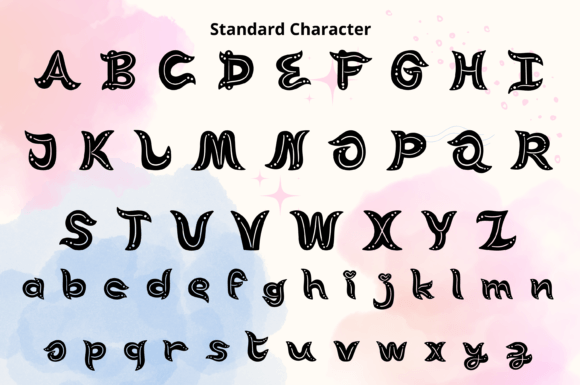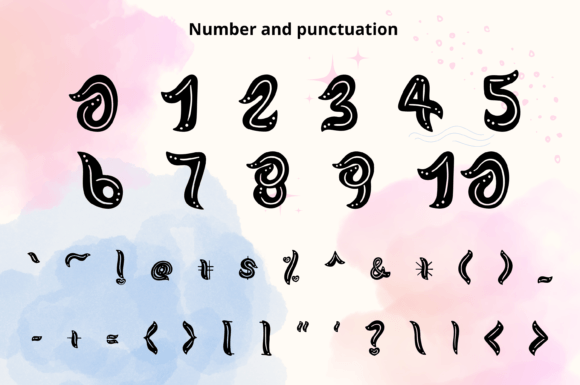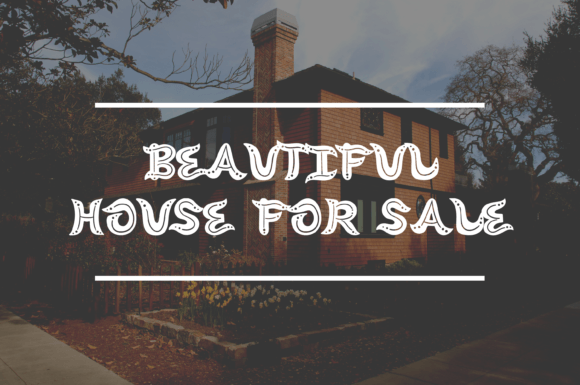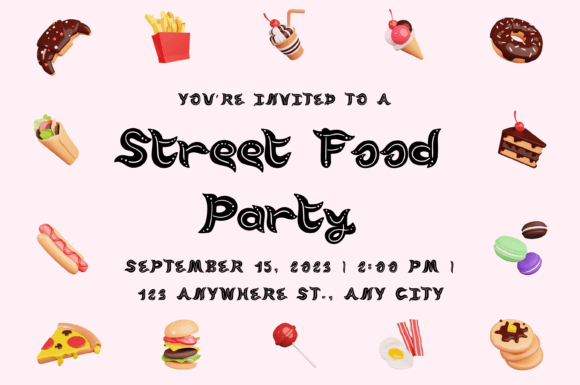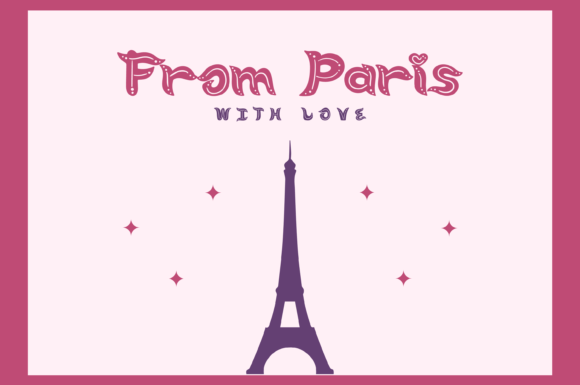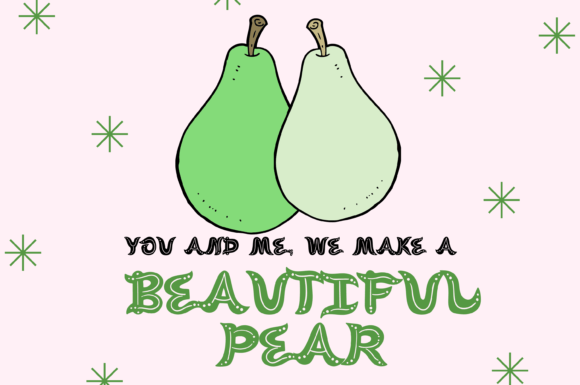
Funky Street Font: Elevate Your Designs with a Whimsical and Clean Handwritten Style
Are you tired of using the same old fonts in your designs? Do you want to add a touch of personality and whimsy to your projects? Look no further than Funky Street Font, a beautiful and versatile handwritten font that’s perfect for designers and crafters alike. In this article, we’ll take a closer look at Funky Street Font, its features, and how you can use it to take your designs to the next level.
What is Funky Street Font?
Funky Street Font is a whimsical and clean handwritten font that’s designed to add a touch of fun and personality to your designs. With its unique and playful style, it’s perfect for a wide range of projects, from branding and advertising to packaging and crafts. Whether you’re a professional designer or a DIY crafter, Funky Street Font is a great addition to your font collection.
Key Features of Funky Street Font
So, what makes Funky Street Font so special? Here are just a few of its key features:
- Whimsical and clean design: Funky Street Font has a unique and playful style that’s both fun and elegant.
- Highly versatile: This font can be used for a wide range of projects, from formal and professional to casual and playful.
- Easy to read: Despite its whimsical design, Funky Street Font is highly legible and easy to read, even at small sizes.
How to Use Funky Street Font in Your Designs
So, how can you use Funky Street Font in your designs? Here are a few ideas to get you started:
- Branding and advertising: Use Funky Street Font to create eye-catching logos, posters, and advertisements that stand out from the crowd.
- Packaging design: Add a touch of personality to your product packaging with Funky Street Font, perfect for food labels, product tags, and more.
- Crafts and DIY projects: Use Funky Street Font to add a personal touch to your craft projects, such as handmade cards, gift tags, and scrapbook pages.
- Social media graphics: Create engaging social media graphics with Funky Street Font, perfect for Facebook posts, Instagram stories, and more.
Tips for Getting the Most Out of Funky Street Font
Here are a few tips for getting the most out of Funky Street Font:
- Experiment with different colors and textures: Funky Street Font looks great in a variety of colors and textures, so don’t be afraid to experiment and find the perfect combination for your design.
- Use it with other fonts: Funky Street Font pairs well with other fonts, so try combining it with a bold font for headings and a clean font for body text.
- Play with font sizes and styles: Funky Street Font comes in a range of font sizes and styles, so experiment with different sizes and styles to add visual interest to your design.
In conclusion, Funky Street Font is a versatile and whimsical handwritten font that’s perfect for designers and crafters alike. With its unique and playful style, it’s a great addition to any font collection. Whether you’re looking to add a touch of personality to your branding and advertising, packaging design, or craft projects, Funky Street Font is a great choice. So why not give it a try and see how it can elevate your designs?
Funky Street is a whimsical and clean handwritten font. It can easily be matched to an incredibly large set of projects, so add it to your creative ideas and notice how it makes them stand out!